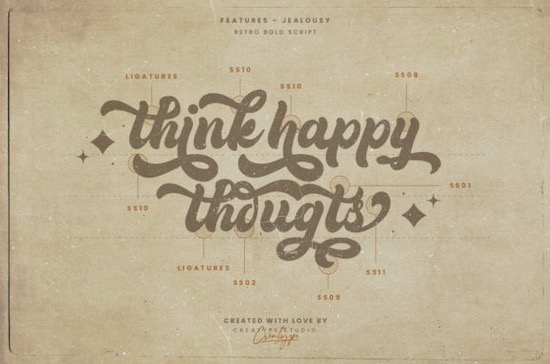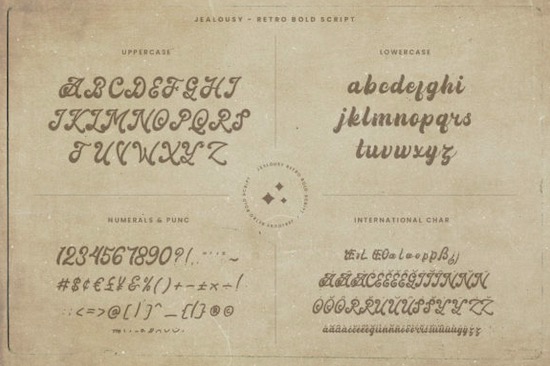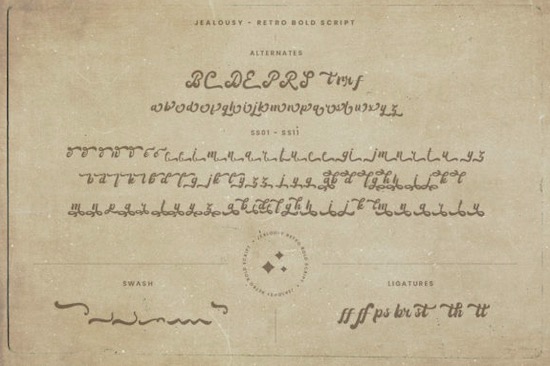
Jealousy font, this Script font is a great modern typeface that was designed and shared by CreatypeStudio. It comes with a fancy and elegant retro style. Taking the look of the 60s to 80s, This font will make you come back to that year and see it back.
Jealousy font is designed for many types of design such as stationery, watermark, label, product packaging, social media posts, logo, branding projects, wedding designs, advertisements, product designs, photography, invitation, and so on.
Jealousy Script font